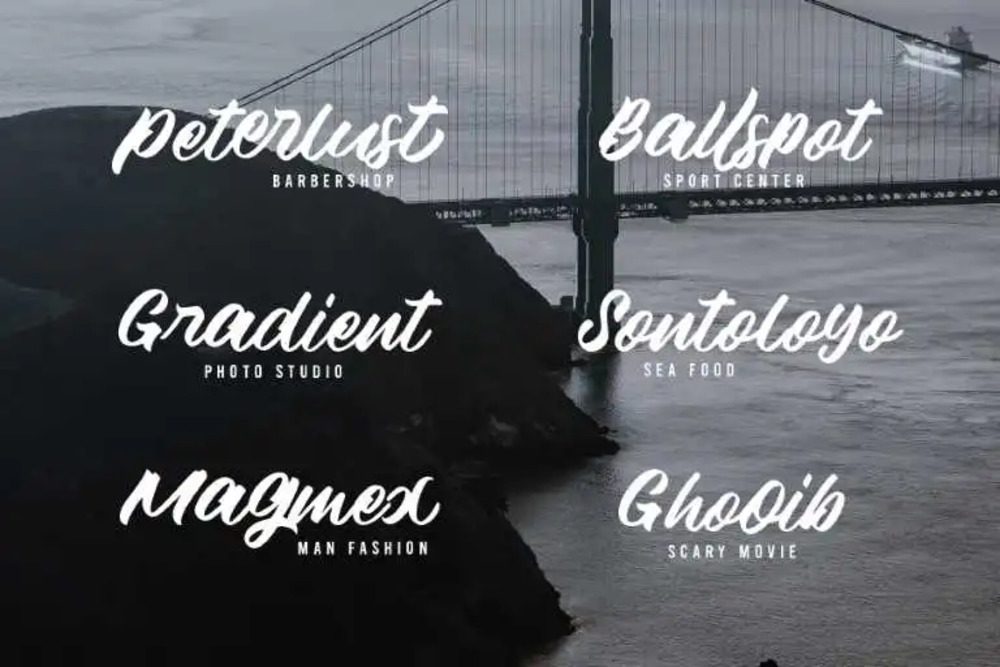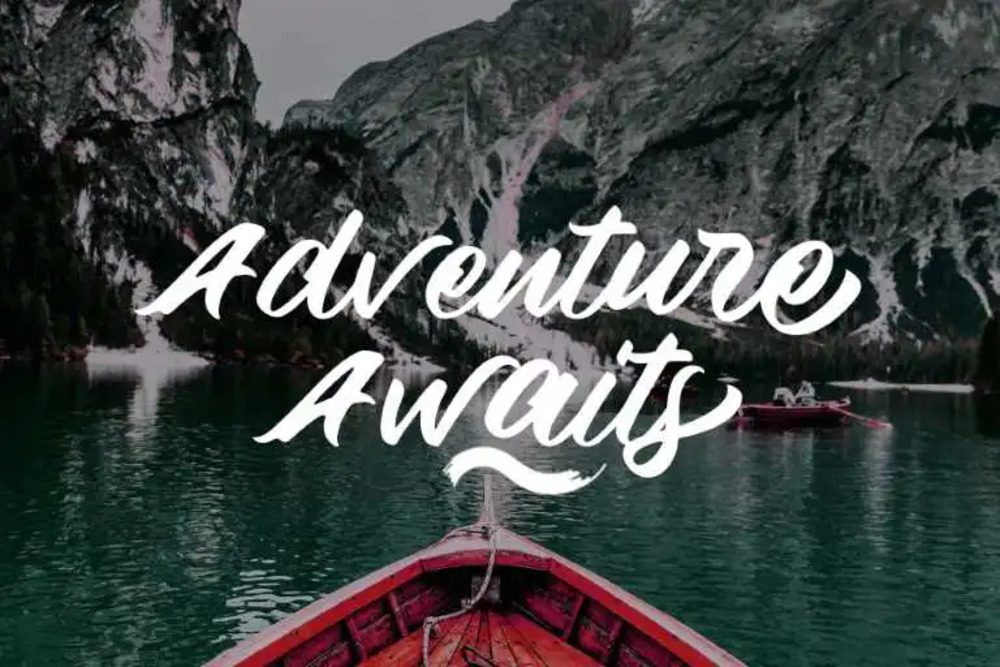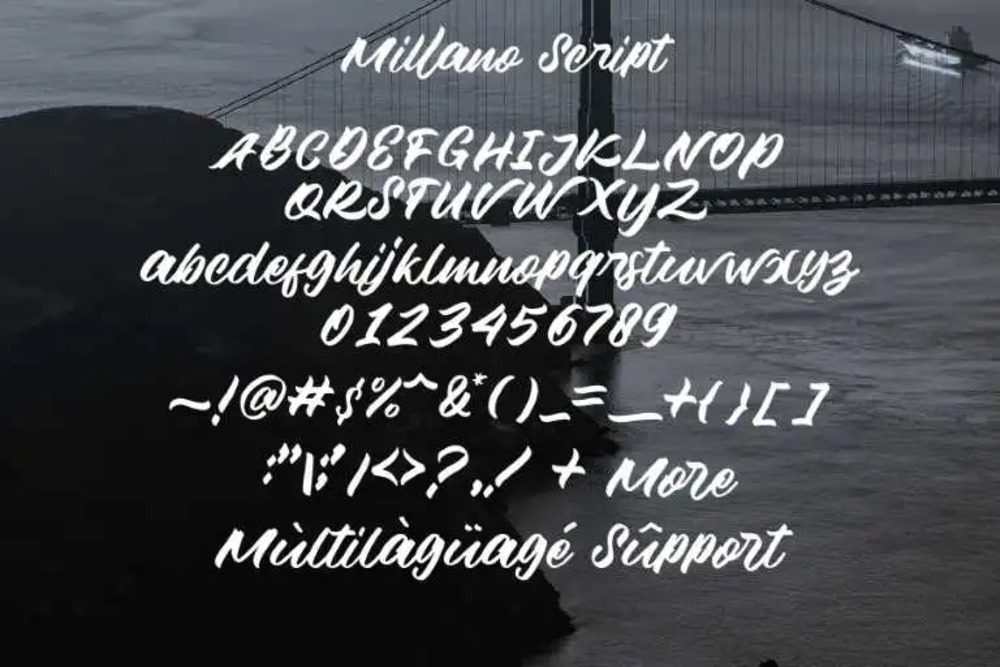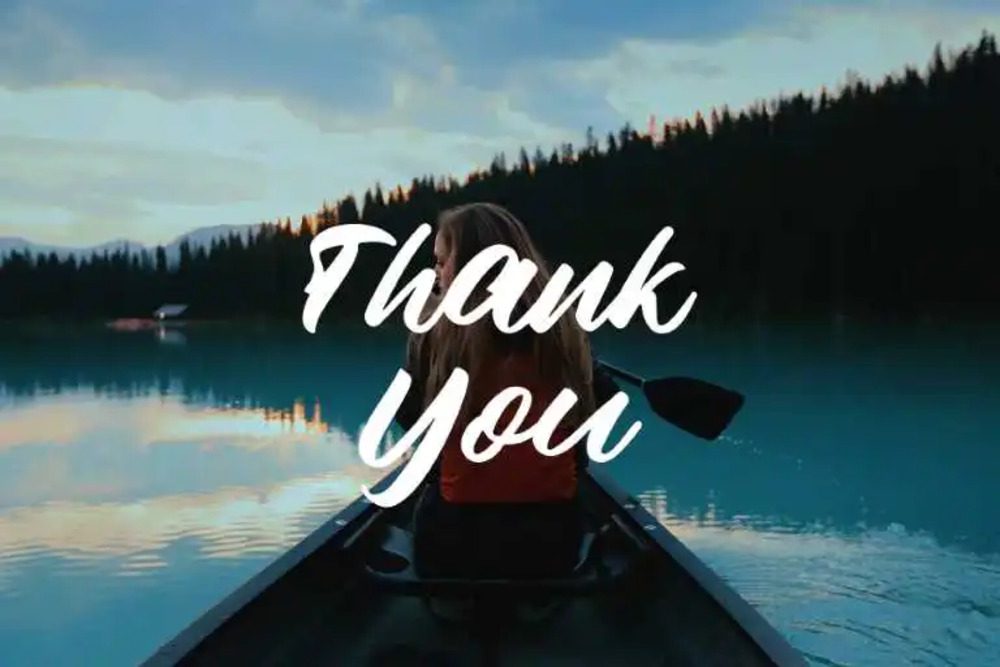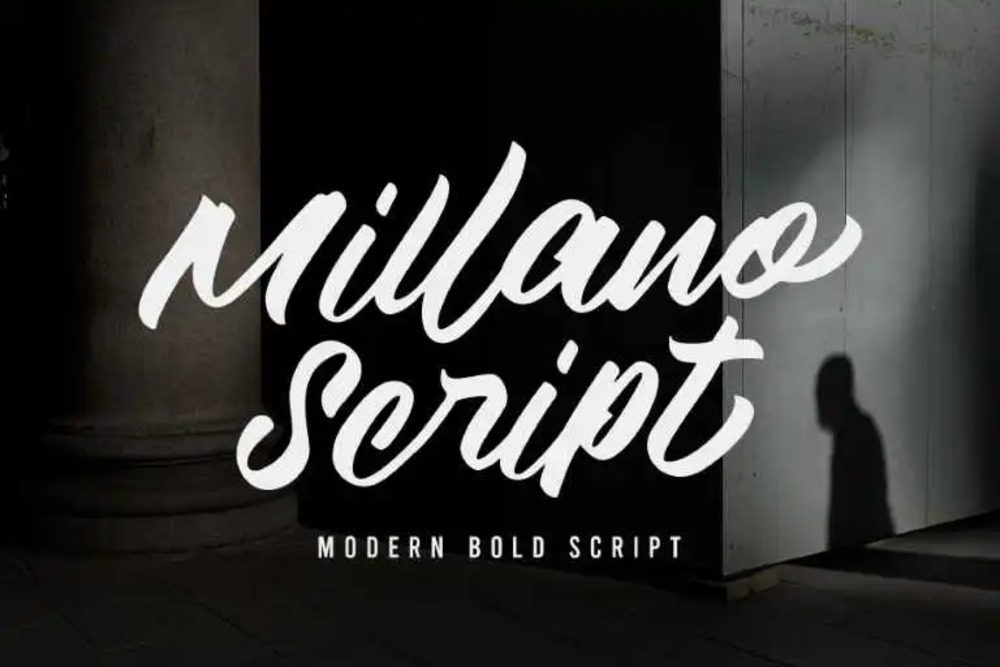
Millano Script Font
Millano Script is a refined and romantic calligraphy font with flowing, graceful curves and elegant swashes. Perfect for wedding invitations, luxury branding, and personalized stationery, it exudes sophistication and charm. Its timeless appeal and smooth, hand-drawn style make every design feel exquisite and unique. Millano Script adds a touch of class and artistry to any project it graces.